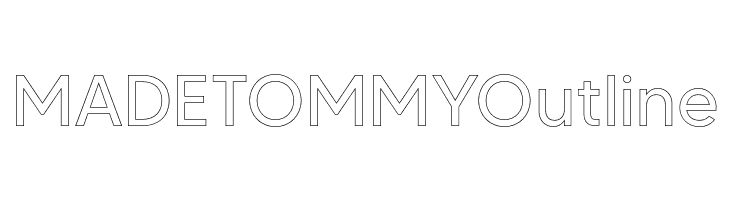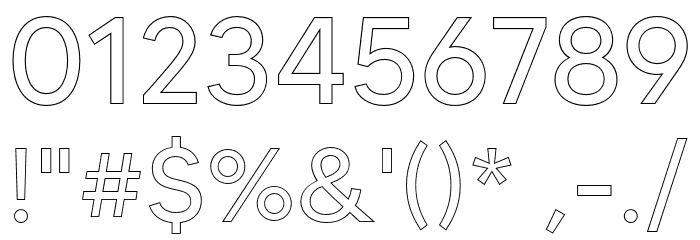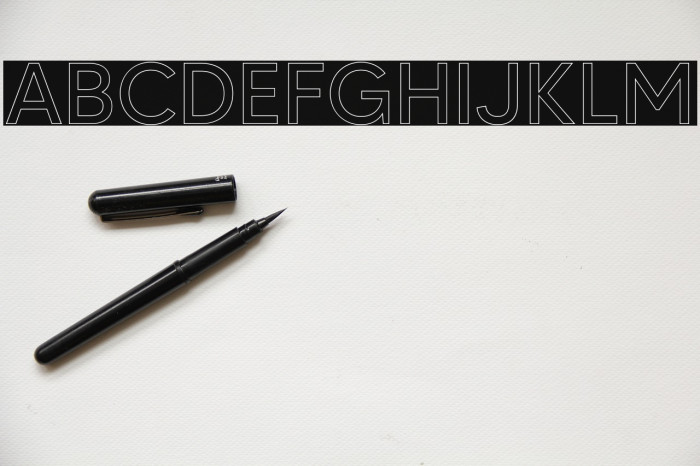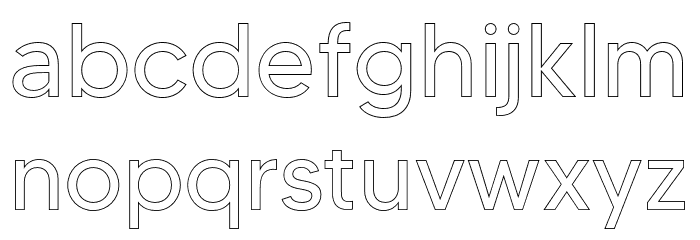
MADETOMMYOutline Font
This font features a clean and modern outline style, characterized by its geometric and uniform letterforms. The uppercase and lowercase letters maintain a consistent stroke width, giving it a sleek and contemporary appearance. The numerals and special characters are designed with the same precision, ensuring a cohesive look across all glyphs. Its simplicity and clarity make it highly legible, even in smaller sizes. The font's outline nature adds a unique touch, making it stand out without being overly decorative. It's versatile enough to be used in various design contexts, from digital to print media.
A modern, geometric outline font with consistent stroke width and high legibility.
• Proposed Projects: Ideal for branding, headlines, posters, and digital media where a modern and clean aesthetic is desired.